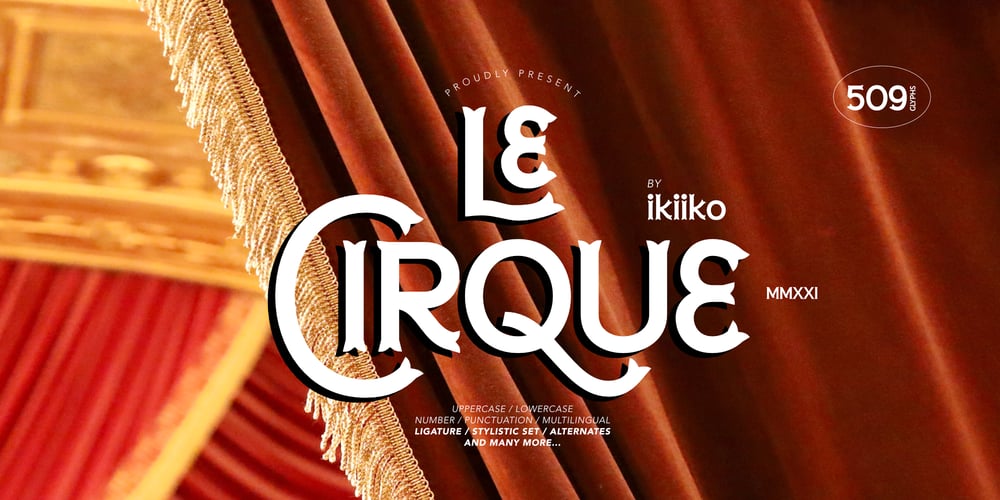
Le Cirque Font Family was designed by Wahyu Eka Prasetya, Andhika Pradana and published by IKIIKOWRK. Le Cirque contains 1 styles and family package options. Introducing Le Cirque – Parade Type, created by ikiiko.A circus vibes with a touch of vintage stye. Le Cirque has both modern and retro look. The perfect one to create layout design in 60s or 70s design projects. This font have unique stylistic set, alternates and swashes that to give to your brand logo, poster, unique & vintage stuff, and another project to a have unique or vintage look.What’s included? Uppercase & Lowercase Number & Punctuation Complete Stylistic set Swashes & Alternates Multilingual Support Get also a good offer & FREEBIE at our site : www.ikiiko.comEnjoy our font and if you have any questions, you can contact us by email : ikiikowrk@gmail.com